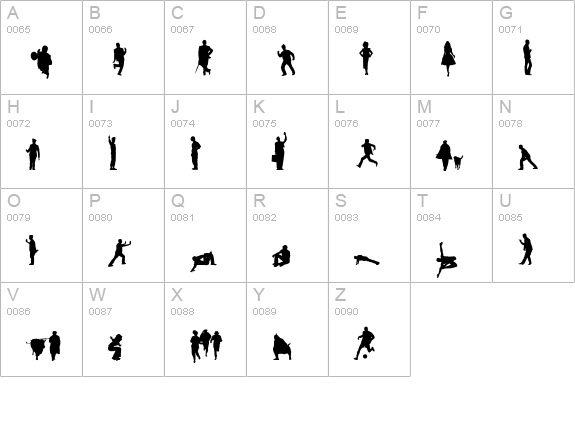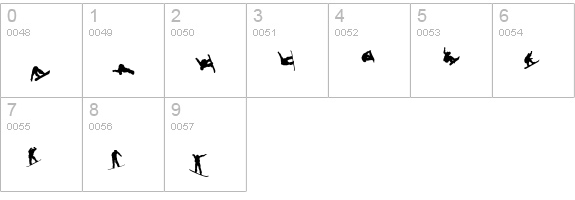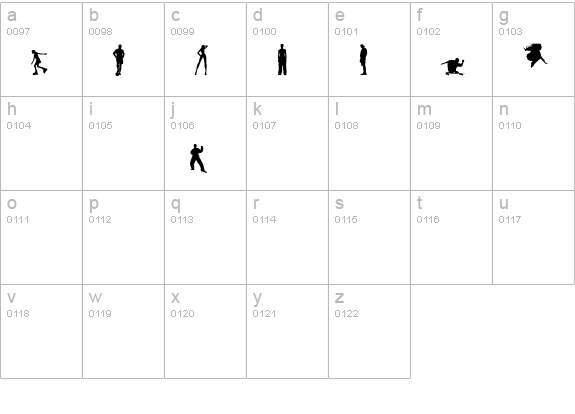
Introducing Celebrity No font, a stunning typeface that exudes elegance and sophistication. With its sleek and modern design, this font is perfect for adding a touch of glamour to any project. Whether you are creating a logo, designing a website, or crafting marketing materials, Celebrity No font will elevate your work to new heights. What's even better is that Celebrity No font is available for free download at FontsMarket.com. Yes, you read that right - you can easily access this gorgeous font without any cost. Don't miss out on this incredible opportunity to enhance your designs with the beauty and grace of Celebrity No font. Download it now and let your creativity shine!